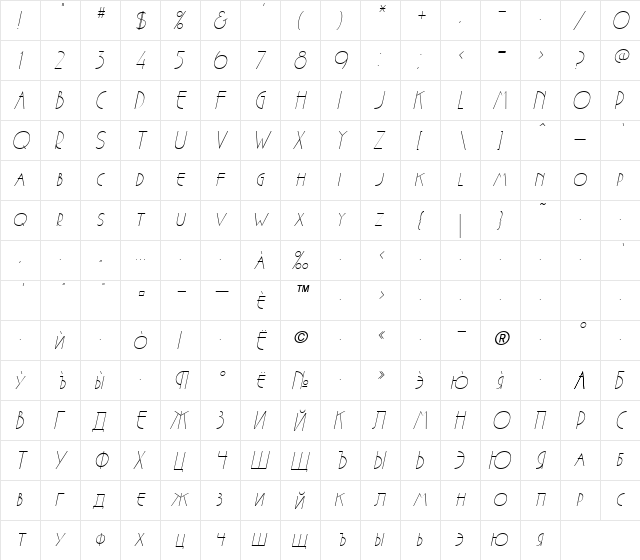
CabelCyr Italic
Design Context for CabelCyr Typeface
CabelCyr is a composed and adaptable typeface that performs quietly and consistently across a wide range of design contexts. The slanted form adds forward momentum and visual energy.